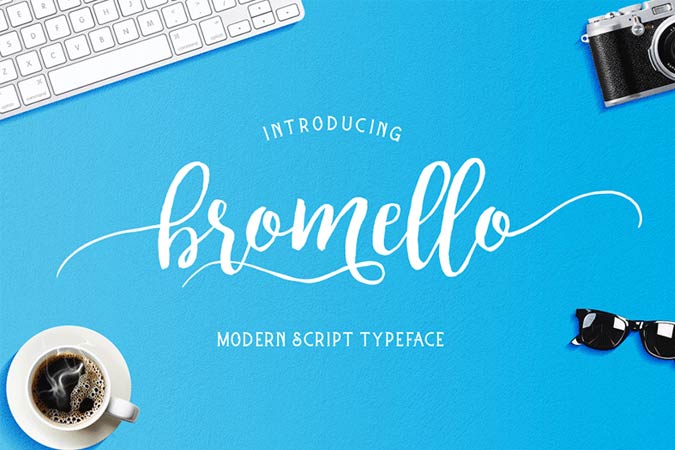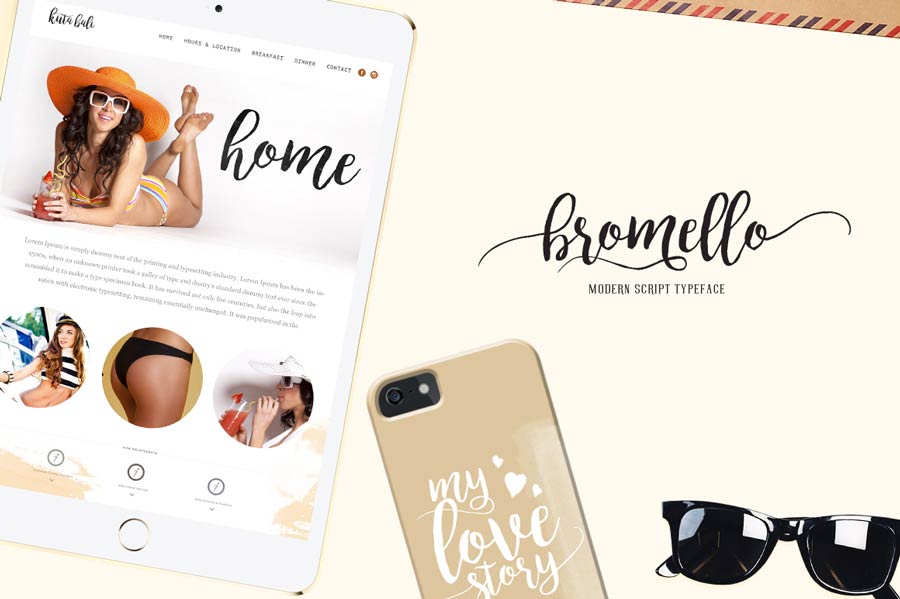
Bromello is a modern hand-drawn typeface with brush where you can download for free. Like many other fonts in similar category, this font is suitable as display text for fashion catalog, wedding invitation cards and more. The free version is only free for personal use with limited sets of letters.